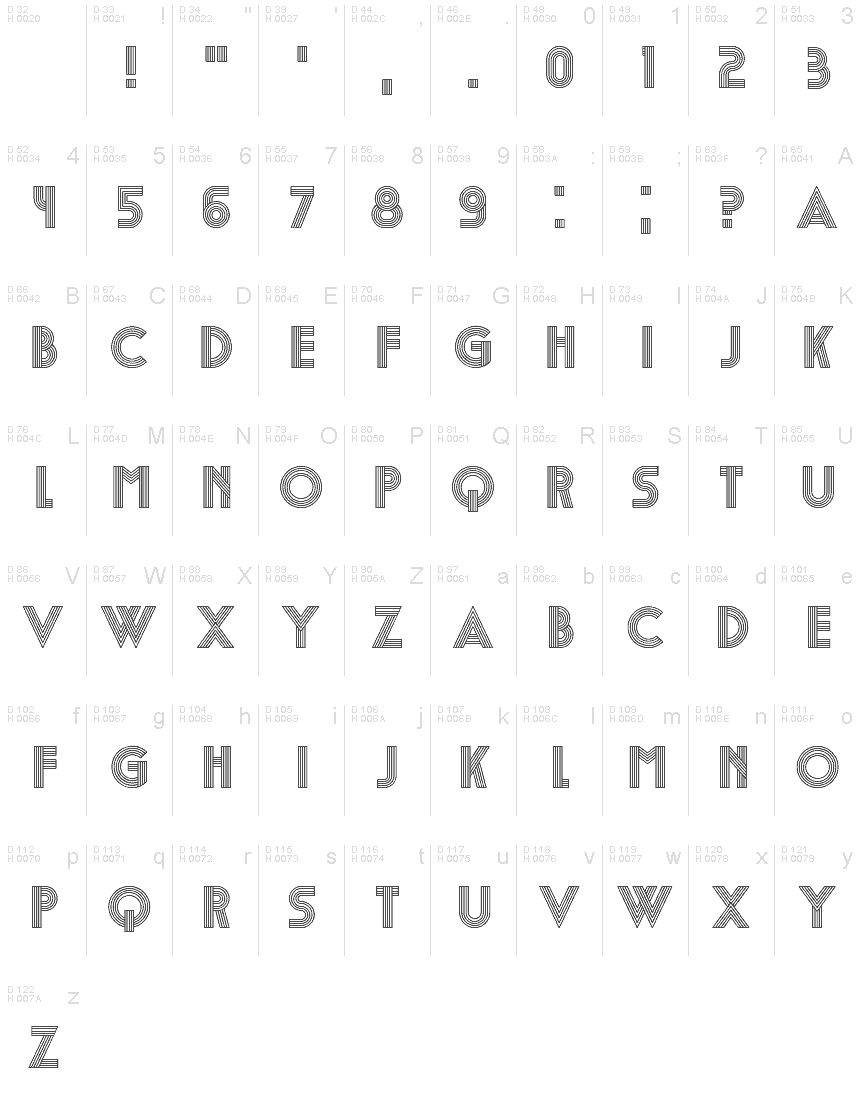
Egypat Regular
Egypat font by Vladimir Nikolic is a free display typeface with bold characters designed in a retro style. The font harbors art deco influence, geometric patterns, decorative lines, and other elements that give it its own identity. To make the most out of this cool typeface, pair it with simple body fonts to avoid clutter in reading.